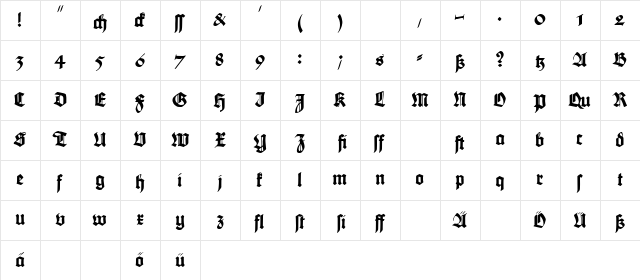
Maximilian Gotisch Regular
Design Context for Maximilian Gotisch
Maximilian Gotisch is a composed and adaptable typeface that performs quietly and consistently across a wide range of design contexts.